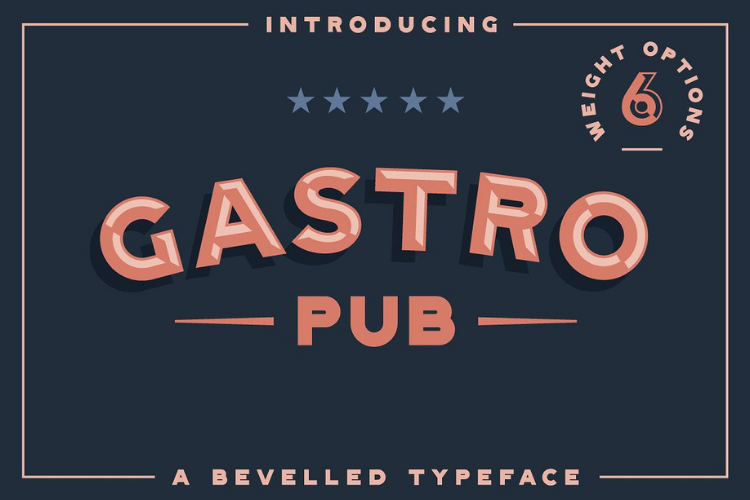
Gastro Pub - Type Family - Font Family
Gastro Pub
I'm very excited to finally release Gastro Pub. Gastro Pub is a Bevelled Typeface giving the letters a 3D effect. The 'cut-out' effect allows it to be layered, giving a more subtle and refined look. Gastro Pub comes with 6 different options: Regular, Filled, Filled Rounded, Regular Pressed, Filled Pressed (Pressed means - Letterpress Texture Applied). Gastro Pub is a bold Sans Serif typeface that is perfect for Logos, Signage, Apparel, Headlines, Etc.
This typeface is a great addition to any collection as it saves time with post production effects and since fonts are vector based, it allows you to scale the effects with ease.